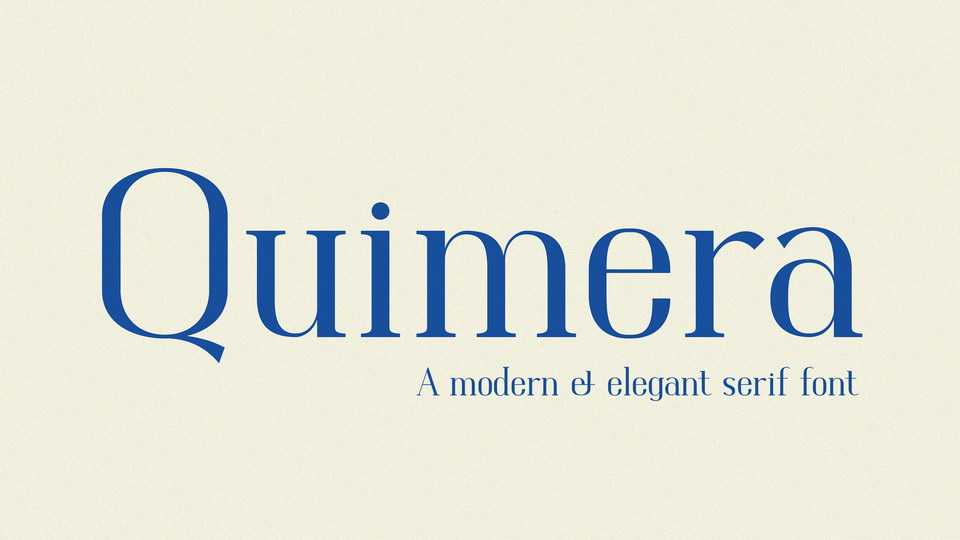
Download Quimera font, a modern and elegant serif typeface to create unique luxurious designs. Quimera is great for editorial design, branding, product design and much more.
Designer: Andres Medrano